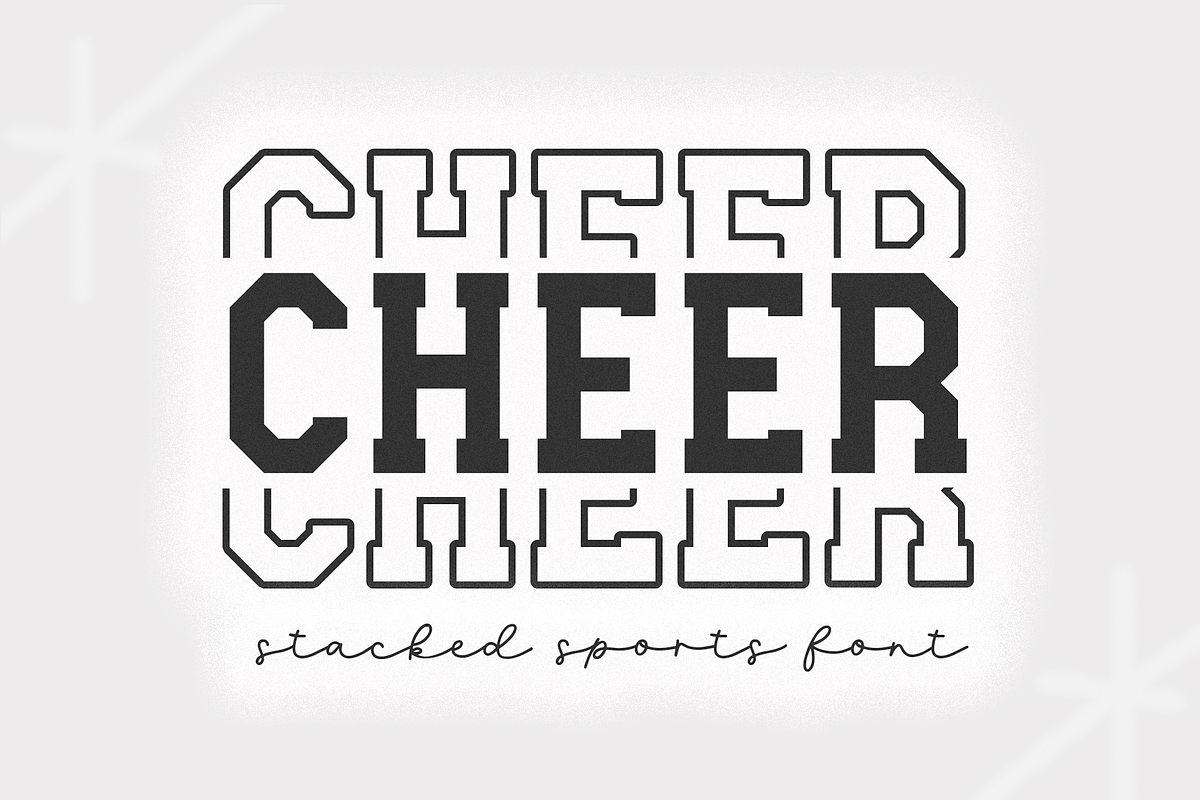
Cheer | Varsity Stacked Font Free Download
Cheer | Varsity Stacked Font Free Download is a bold and spirited typeface inspired by classic varsity lettering with a fresh, stacked twist. Perfect for sports team merch, school branding, cheer squad graphics, event posters, and pep rally materials, this font captures the energy and pride of athletic tradition. Its blocky, layered look makes every word stand tall and powerful.
With clean lines and strong visual impact, Cheer is designed for high visibility and team spirit. Whether used for apparel, signage, or digital content, it brings a competitive edge and vintage charm to your designs.